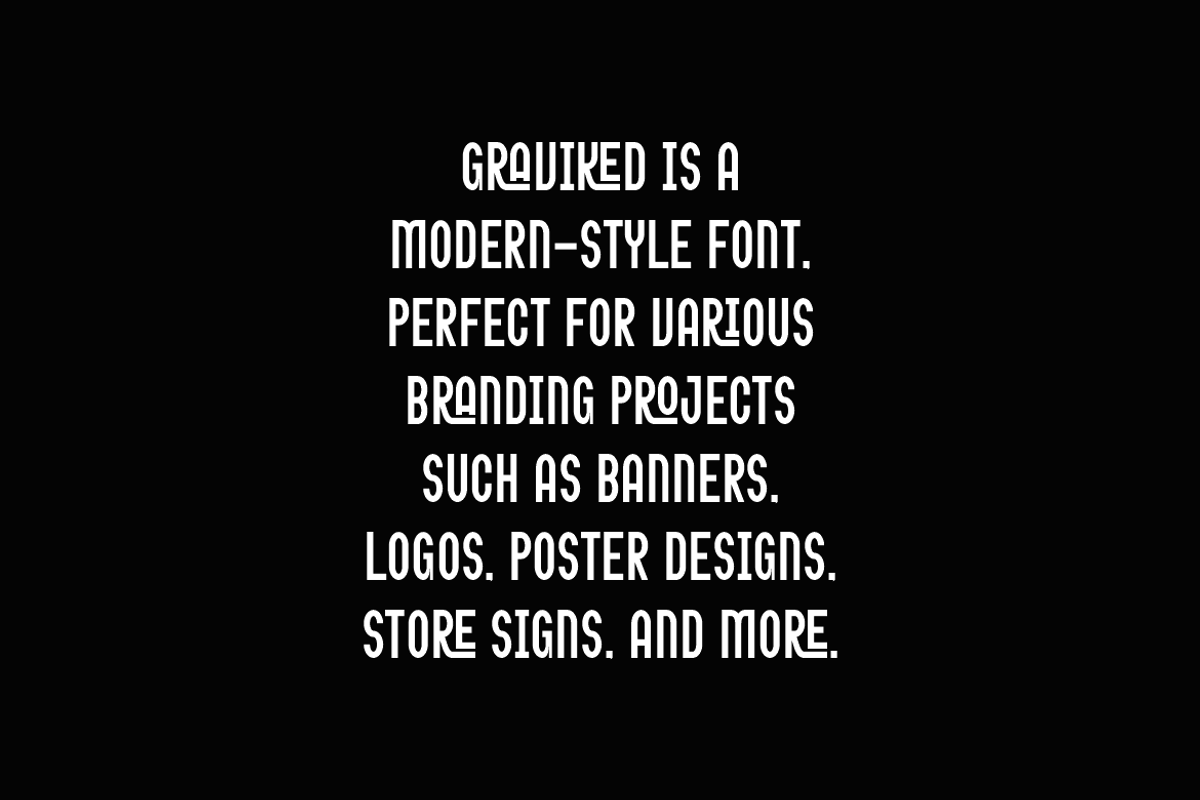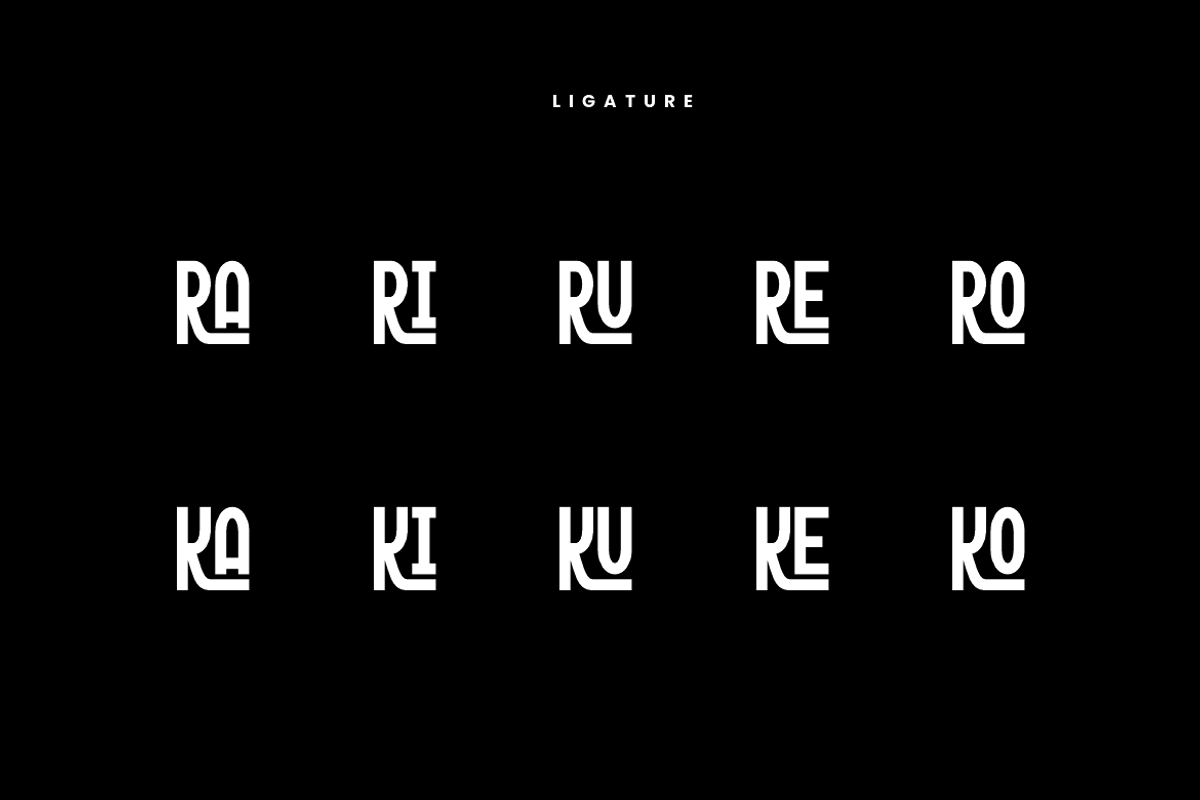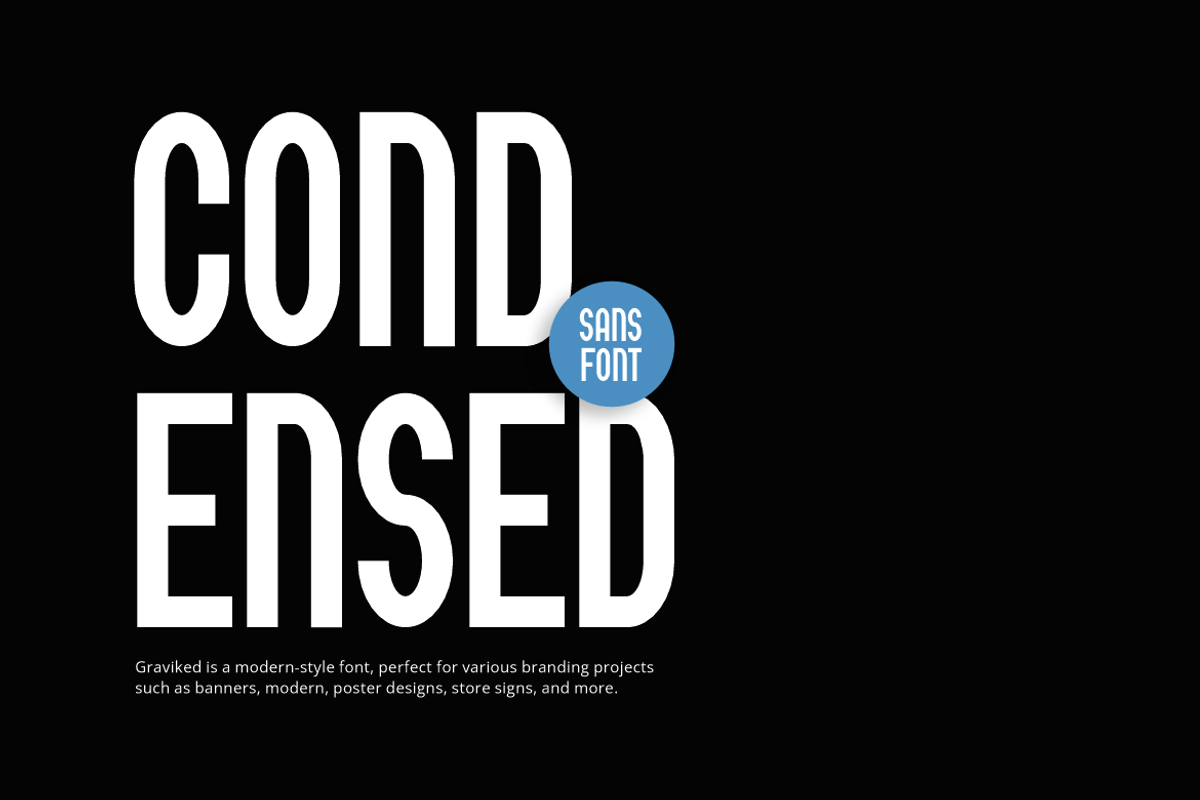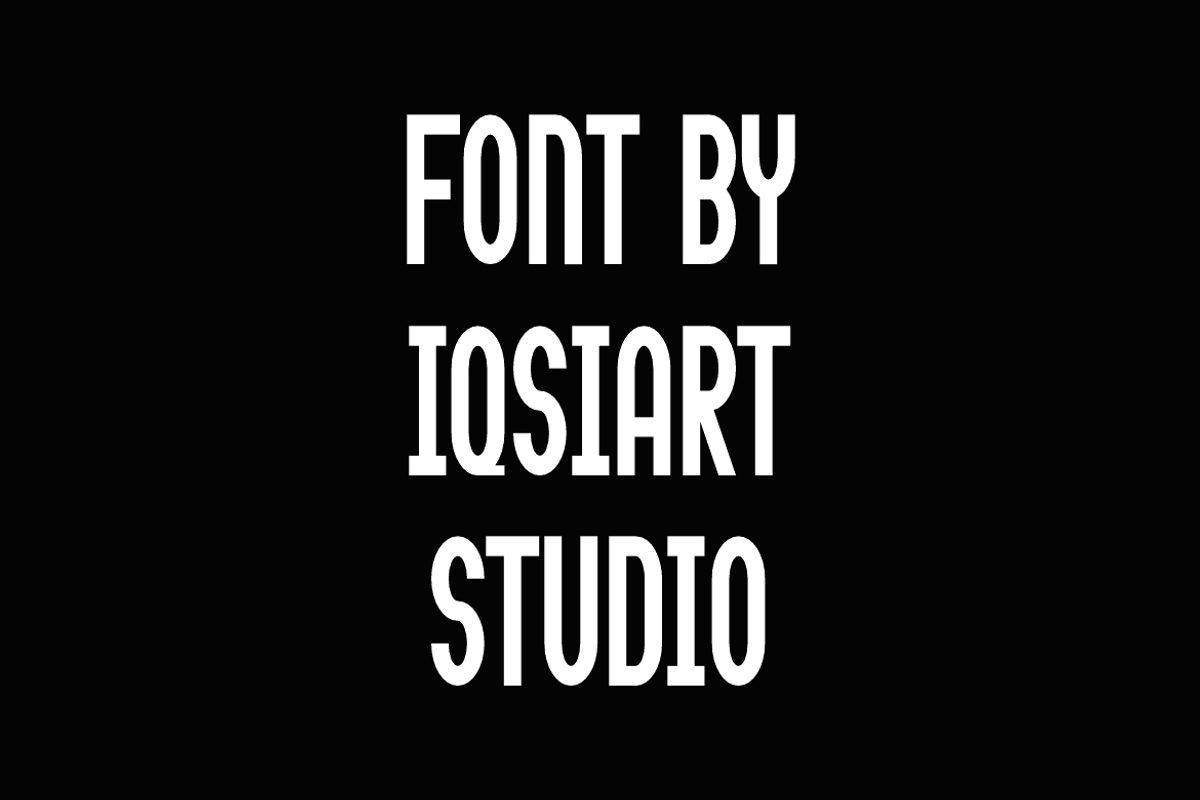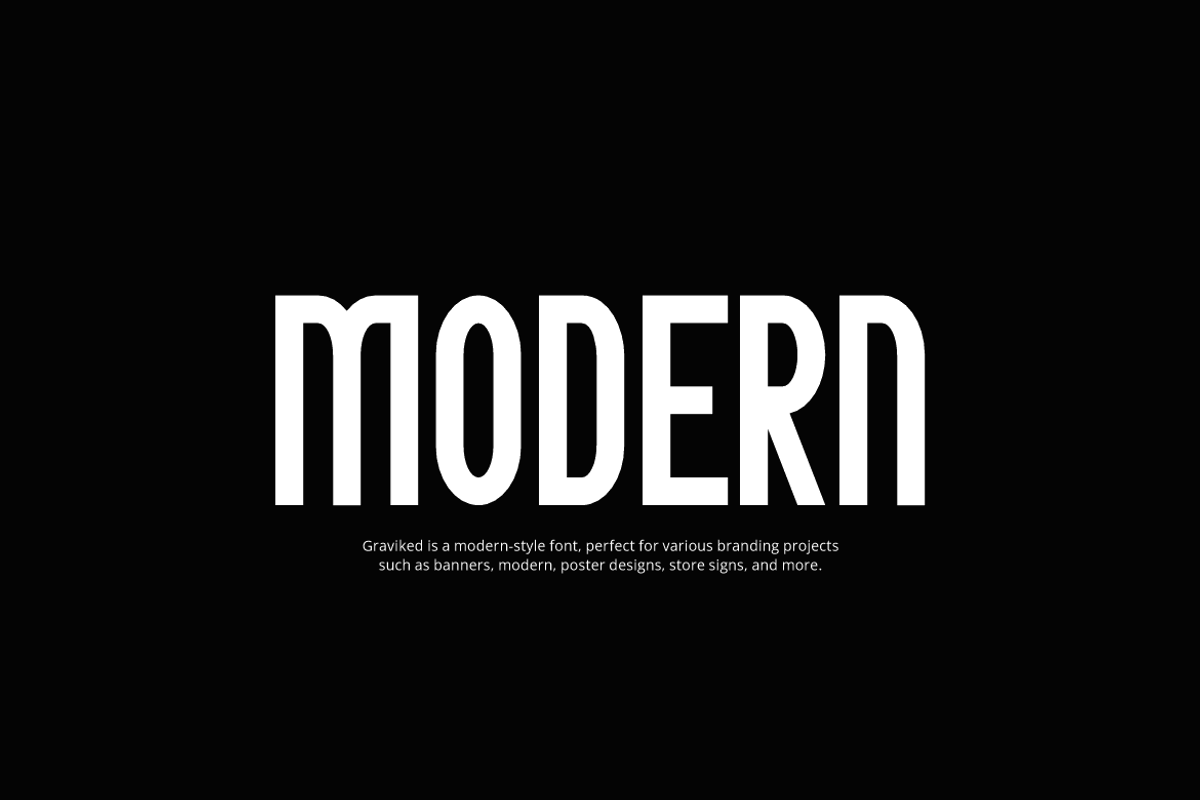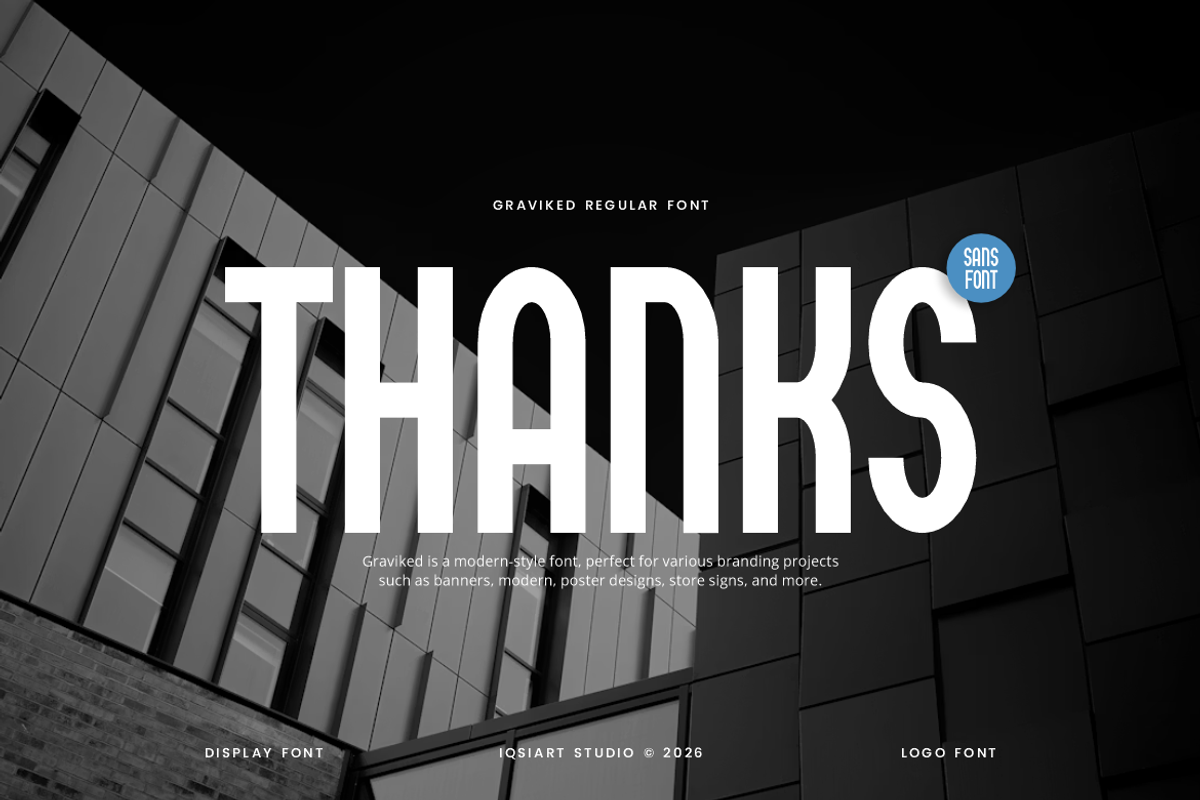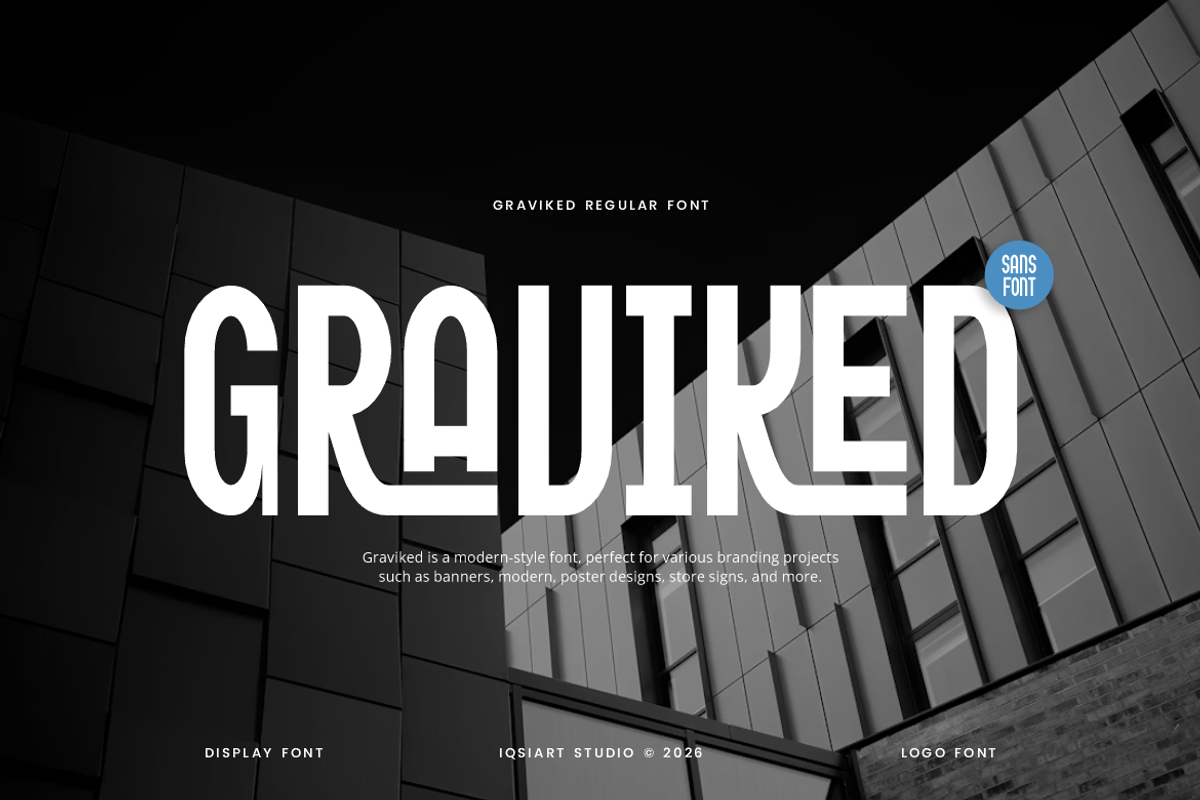
Graviked - Ligatures Font
Graviked Font is a bold and authentic display typeface that suits a variety of design needs. We offer a wide range of themes and font styles — visit our profile to explore more and find the perfect style for your project.